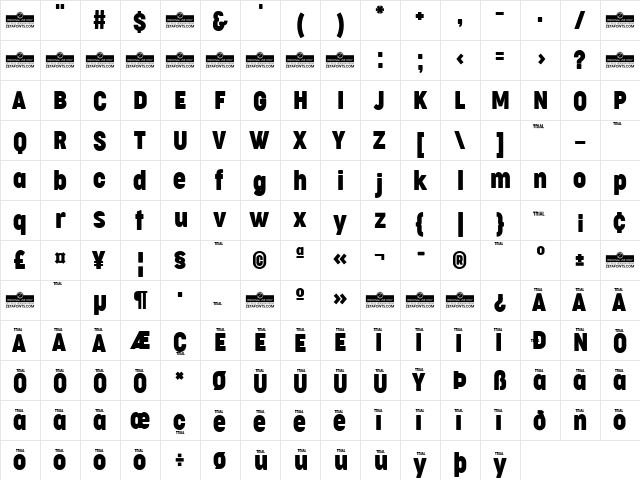
Cocogoose Condensed Trial Regular
Design Context for Cocogoose Condensed Trial Typeface
Cocogoose Condensed Trial is a composed and adaptable typeface that performs quietly and consistently across a wide range of design contexts. Its narrow stance lets it pack a punch even in space-constrained designs.